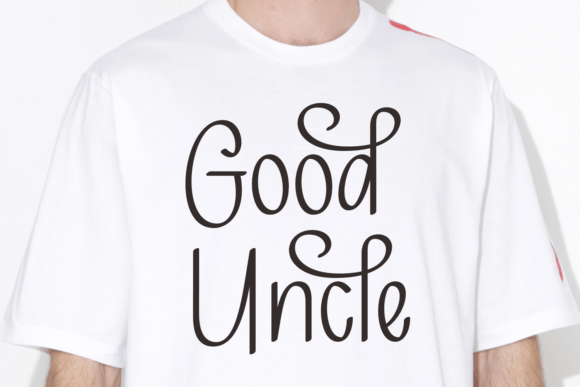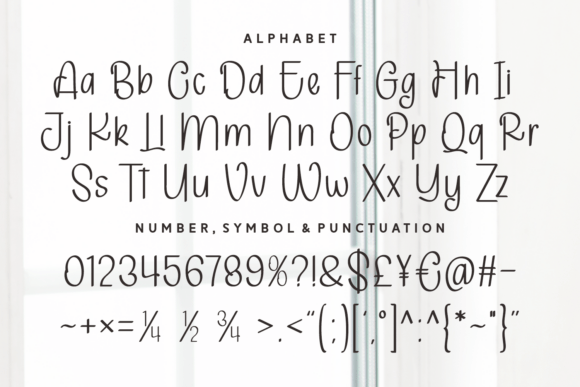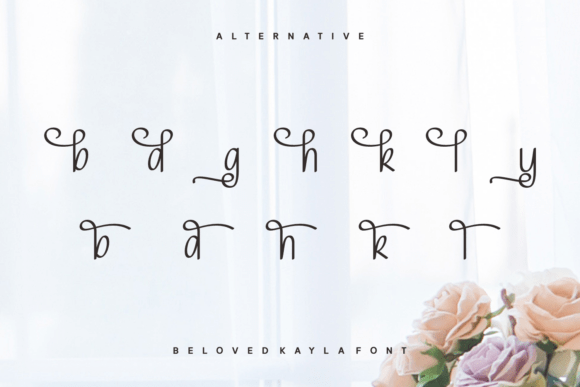
Meet Beloved Kayla: The Signature Stylish Font for Modern Design Enthusiasts
In the realm of typography, a font can make or break the visual appeal of a design project. With the ever-evolving demands of the digital age, designers and crafters are constantly on the lookout for typefaces that not only exude elegance but also convey a sense of modernity. This is where Beloved Kayla comes into play – a signature stylish font that has been making waves in the design community with its perfect blend of sophistication and contemporary flair.
The Genesis of Beloved Kayla
Beloved Kayla is more than just a font; it’s a web craft that has been meticulously designed to excel in its smooth and rhythmic flow. Its creation is a testament to the evolving needs of digital design, where readability and aesthetic appeal are paramount. This font is not just a collection of letters; it’s an experience that brings a touch of personalization and charm to your digital and print projects.
Characteristics of Beloved Kayla
So, what sets Beloved Kayla apart from the plethora of fonts available today? Here are a few key characteristics that make it a beloved choice among designers:
- Handwritten Script Traits: Beloved Kayla boasts handwritten script traits that add a personal touch to any design. This feature makes it ideal for projects that require a bit of warmth and personality.
- Elegance and Contemporary Wave: The font strikes a perfect balance between elegance and modernity. Its sleek lines and fluid curves make it a versatile choice for a wide range of design projects.
- Smooth & Rhythmic Flow: One of the standout features of Beloved Kayla is its smooth and rhythmic flow. This ensures that your text is not only readable but also visually appealing.
- Versatility: Whether you’re working on a digital project or a print design, Beloved Kayla adapts seamlessly. Its versatility makes it a go-to font for designers who work across multiple mediums.
Why Choose Beloved Kayla?
With so many fonts available, why should Beloved Kayla be your top choice? Here are a few compelling reasons:
- Unique Personality: Beloved Kayla has a delightful personality that shines through in every letter. It adds a touch of sophistication and charm to your designs, setting them apart from the rest.
- Enhances Readability: Despite its elegant and modern appearance, Beloved Kayla does not compromise on readability. It’s designed to ensure that your message is conveyed clearly and effectively.
- Time-Saving: With Beloved Kayla, you can achieve professional-looking results without spending hours on intricate design work. It’s a time-saving solution that doesn’t compromise on quality.
How to Use Beloved Kayla in Your Designs
Integrating Beloved Kayla into your design workflow is straightforward. Here are a few tips to get you started:
- Pair it with Other Fonts: While Beloved Kayla is stunning on its own, it can also be paired with other fonts for contrasting effects. Experiment with different combinations to find what works best for your project.
- Adjust the Size and Weight: Don’t be afraid to play around with the size and weight of Beloved Kayla. Its versatility means it can be used in headlines, body text, and everything in between.
- Use it Across Different Mediums: From digital interfaces to print materials, Beloved Kayla can be used across a variety of mediums. Its flexibility makes it an excellent addition to any designer’s toolkit.
| Author | Ade (7NTypes) |
Beloved Kayla is not just a font; it’s a design companion that can elevate your creative projects to new heights. Its perfect blend of elegance, modernity, and readability makes it an indispensable tool for designers and crafters. Whether you’re looking to add a touch of sophistication to your typography or seeking a versatile font for your next project, Beloved Kayla is an excellent choice. Immerse your audience in the delightful personality of Beloved Kayla and watch your designs transform with beguiling sophistication.